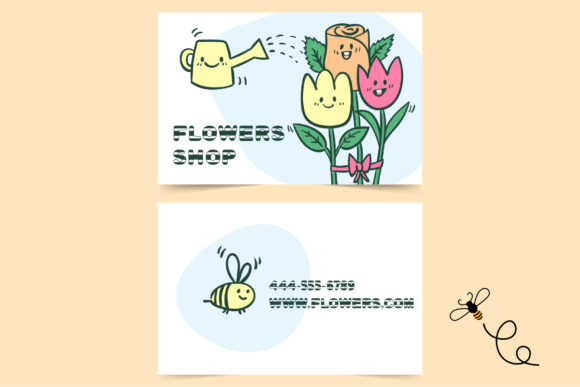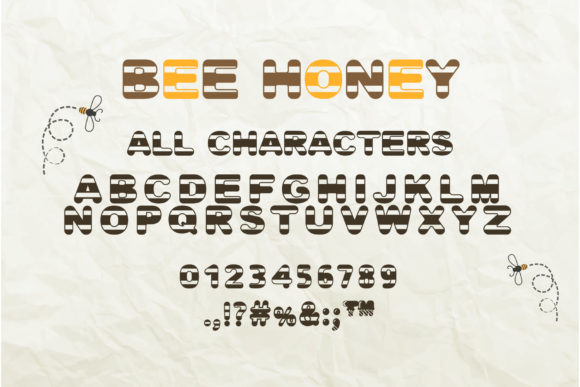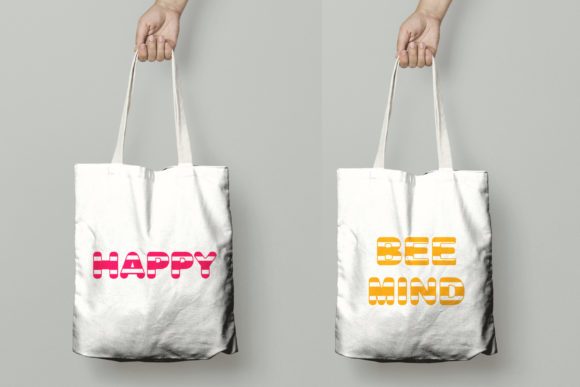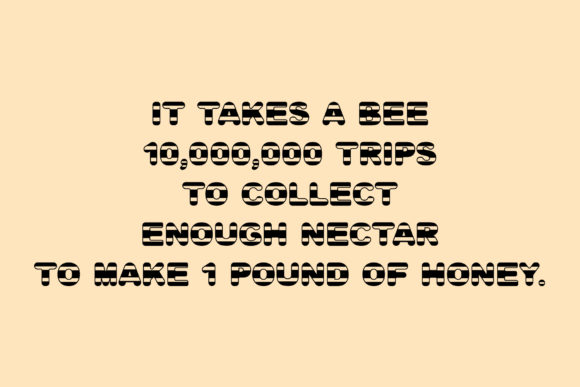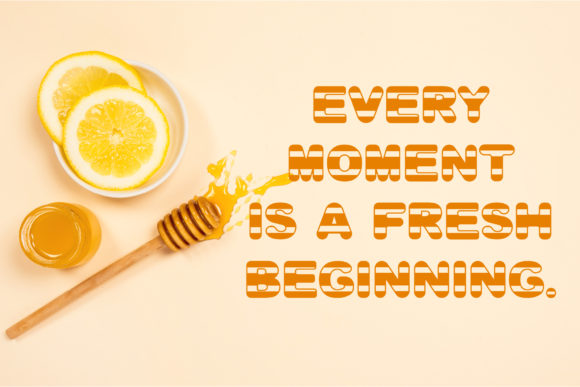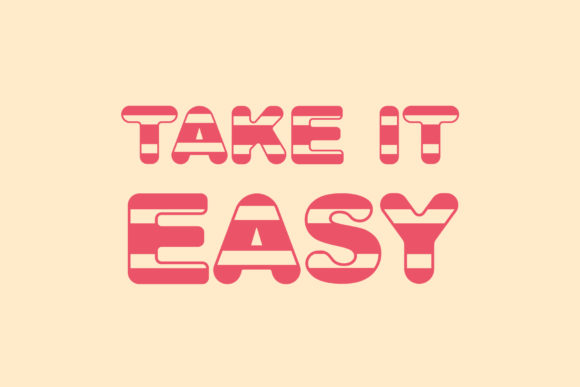
Bee Honey Font: The Sweetest Addition to Your Design Collection
Are you tired of using the same old fonts in your designs? Look no further than the Bee Honey Font, a bold and chunky lettered display font that’s sure to make your projects stand out. With its incredibly unique style, Bee Honey is the perfect choice for a wide variety of designs, from crafting and DIY projects to branding and advertising.
What Makes Bee Honey Font So Special?
Bee Honey Font is a one-of-a-kind font that’s sure to add a touch of personality to any design. Its bold and chunky letters are perfect for making a statement, and its unique style ensures that your designs will never get lost in the crowd. Whether you’re creating a logo, a poster, or a social media graphic, Bee Honey Font is the perfect choice.
As a designer or crafter, you’re always on the lookout for new and exciting ways to add some personality to your projects. Bee Honey Font is the perfect addition to your design collection, with its bold and chunky letters that are sure to add a touch of whimsy to any project. From crafting and DIY projects to branding and advertising, Bee Honey Font is the perfect choice for anyone looking to add some sweetness to their designs.
Unique Features of Bee Honey Font
So what makes Bee Honey Font so unique? Here are just a few of its standout features:
- Bold and Chunky Letters: Bee Honey Font features bold and chunky letters that are perfect for making a statement.
- Unique Style: With its one-of-a-kind style, Bee Honey Font is sure to add a touch of personality to any design.
- High-Quality Design: Bee Honey Font is designed with high-quality and precision, ensuring that it looks great in any design.
- Easy to Read: Despite its bold and chunky style, Bee Honey Font is easy to read, making it perfect for use in a wide variety of designs.
Uses for Bee Honey Font
So what can you use Bee Honey Font for? The possibilities are endless! Here are just a few ideas to get you started:
- Branding and Advertising: Use Bee Honey Font to create eye-catching logos, posters, and social media graphics that are sure to grab attention.
- Crafting and DIY Projects: Add a touch of personality to your crafting and DIY projects with Bee Honey Font, perfect for use on signs, labels, and more.
- Party Decorations: Use Bee Honey Font to create custom party decorations, such as banners, signs, and invitations.
- Social Media Graphics: Add a touch of sweetness to your social media graphics with Bee Honey Font, perfect for use on Instagram, Facebook, and more.
In conclusion, Bee Honey Font is a bold and chunky lettered display font that’s sure to add a touch of personality to any design. With its incredibly unique style and high-quality design, Bee Honey Font is the perfect choice for designers and crafters alike. Whether you’re creating a logo, a poster, or a social media graphic, Bee Honey Font is the perfect addition to your design collection.